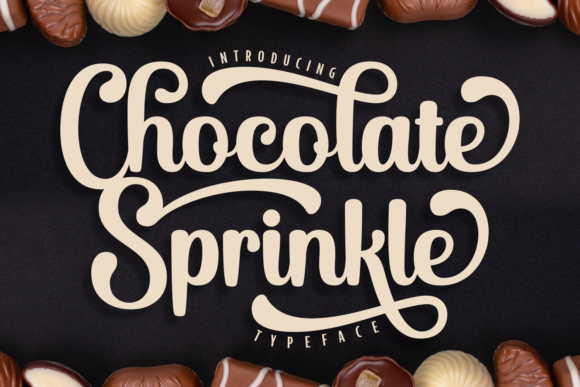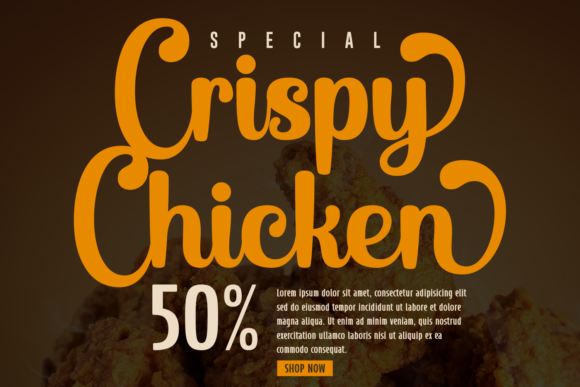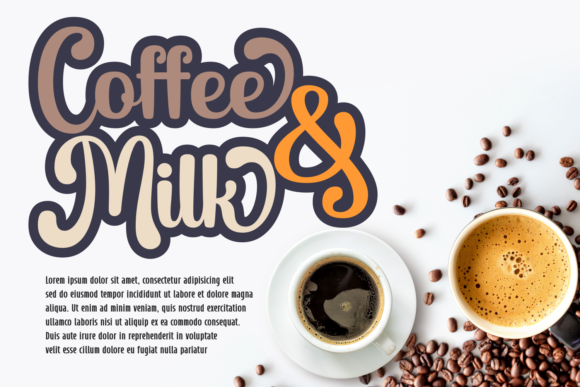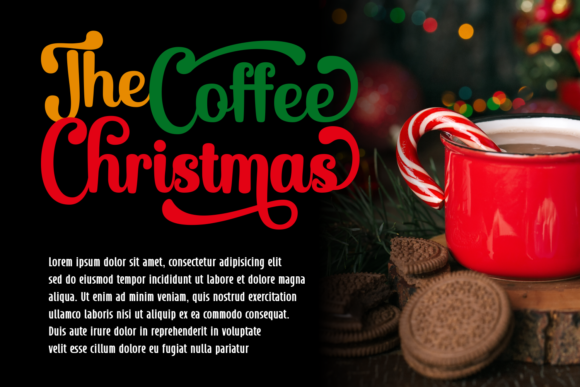
About Chocolate Sprinkle Font
Chocolate Sprinkle is a bold, trendy, and stylish script font. It is PUA encoded, which means you can access all glyphs and swashes with ease!
Chocolate Sprinkle will elevate a wide range of crafting ideas, from cards to branding, labels, and much more.